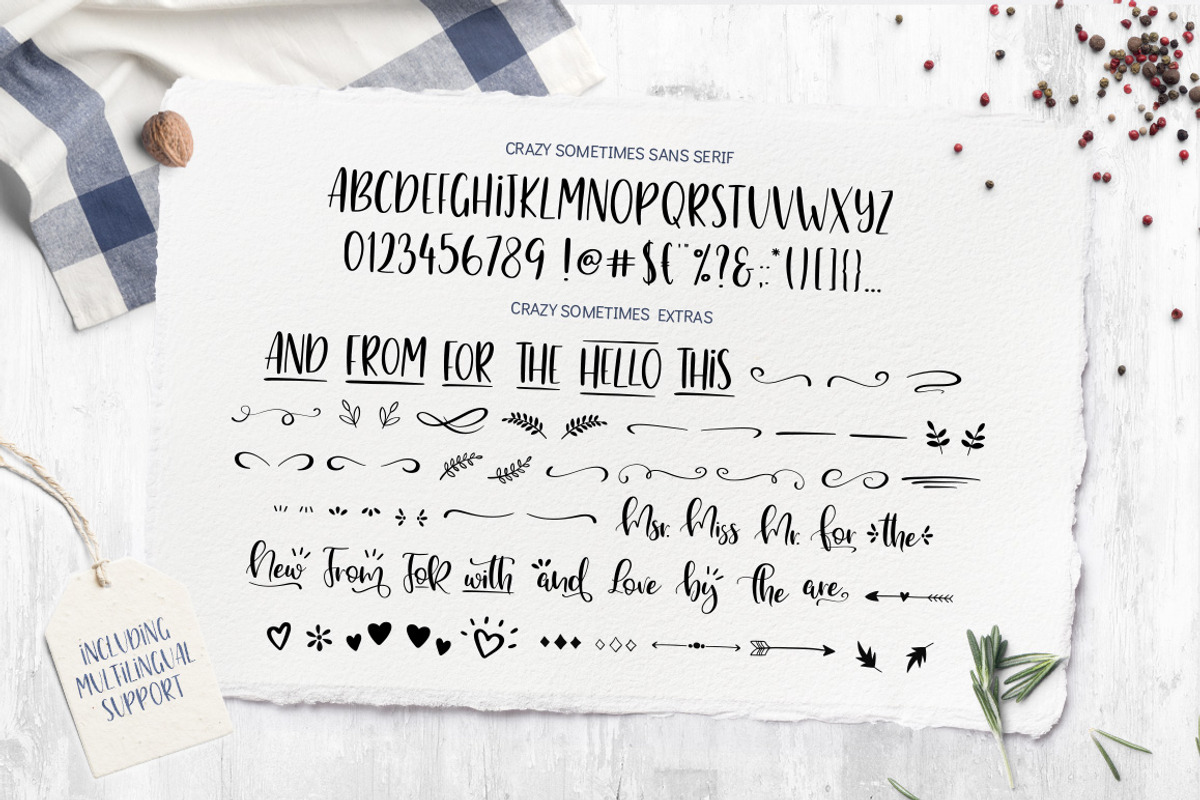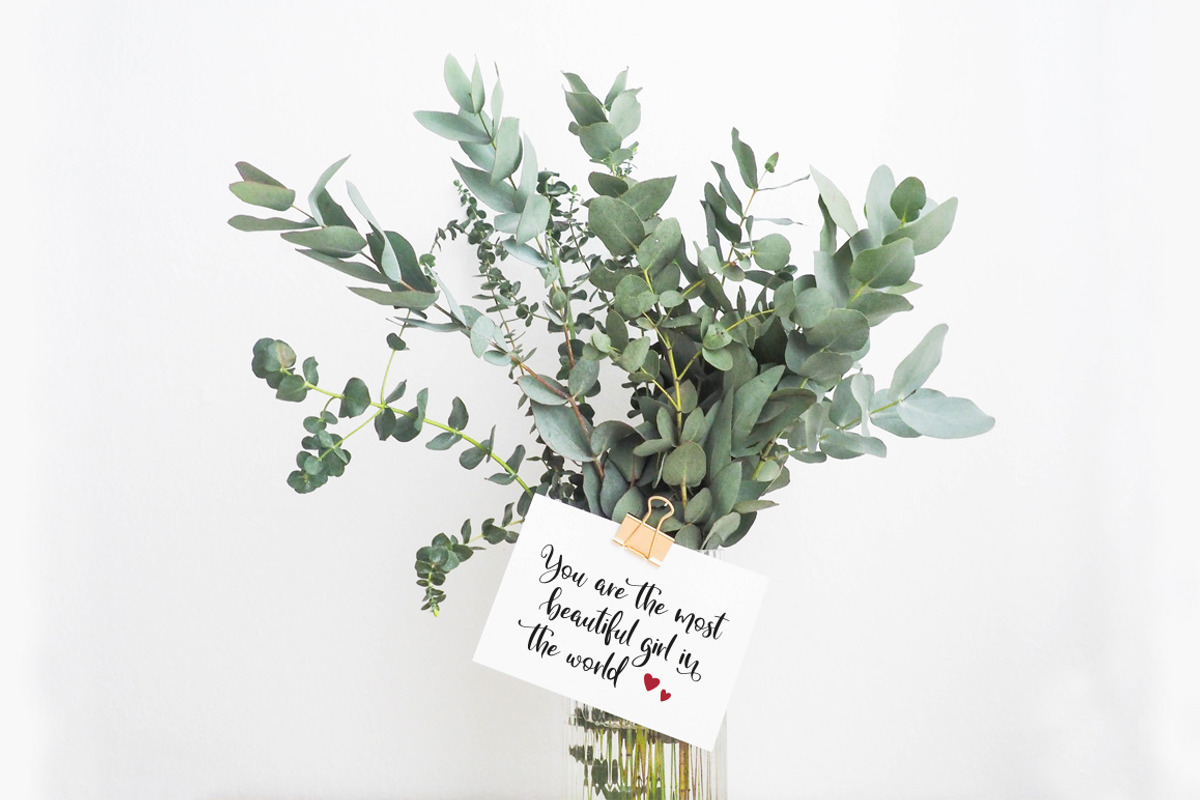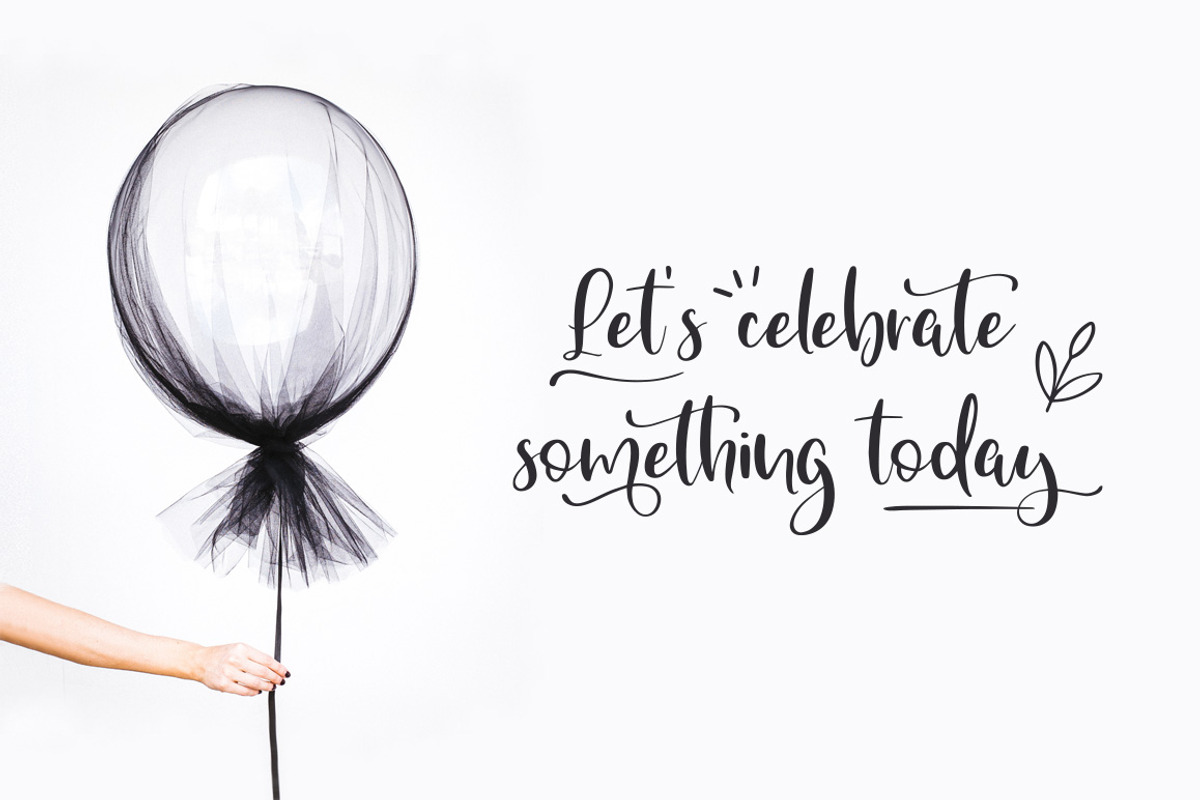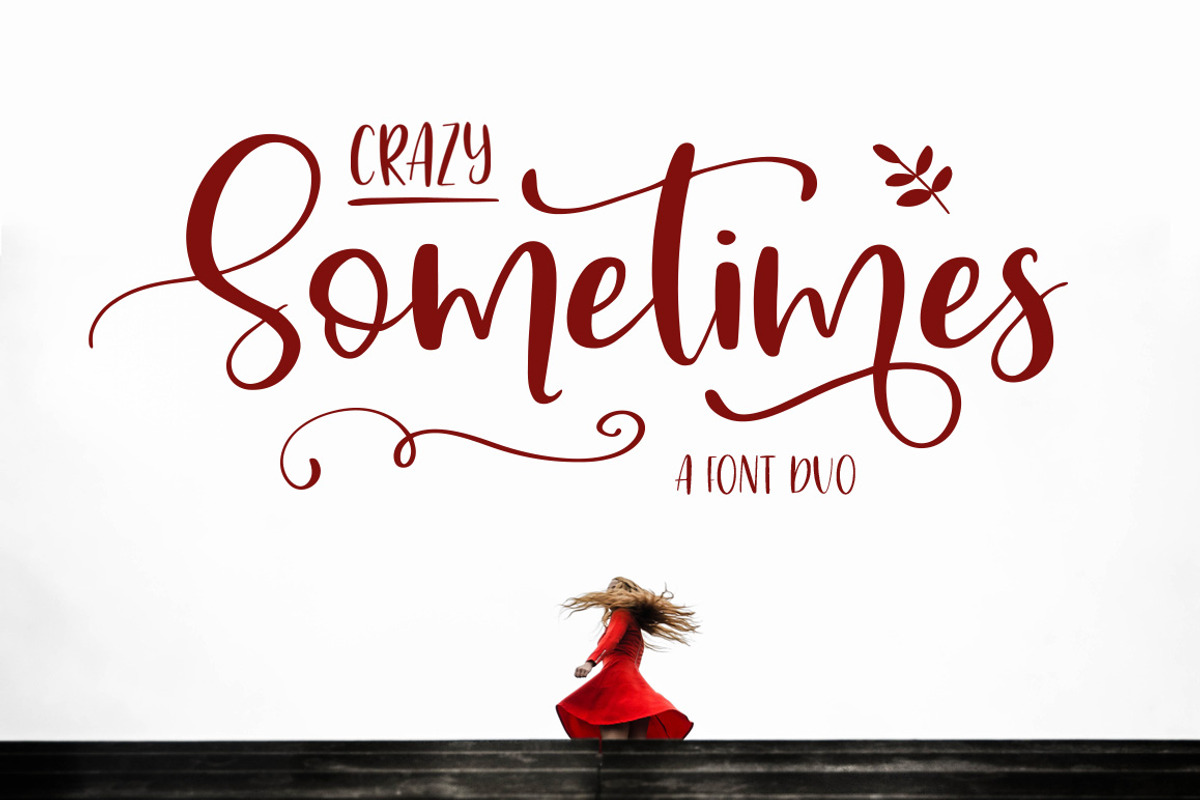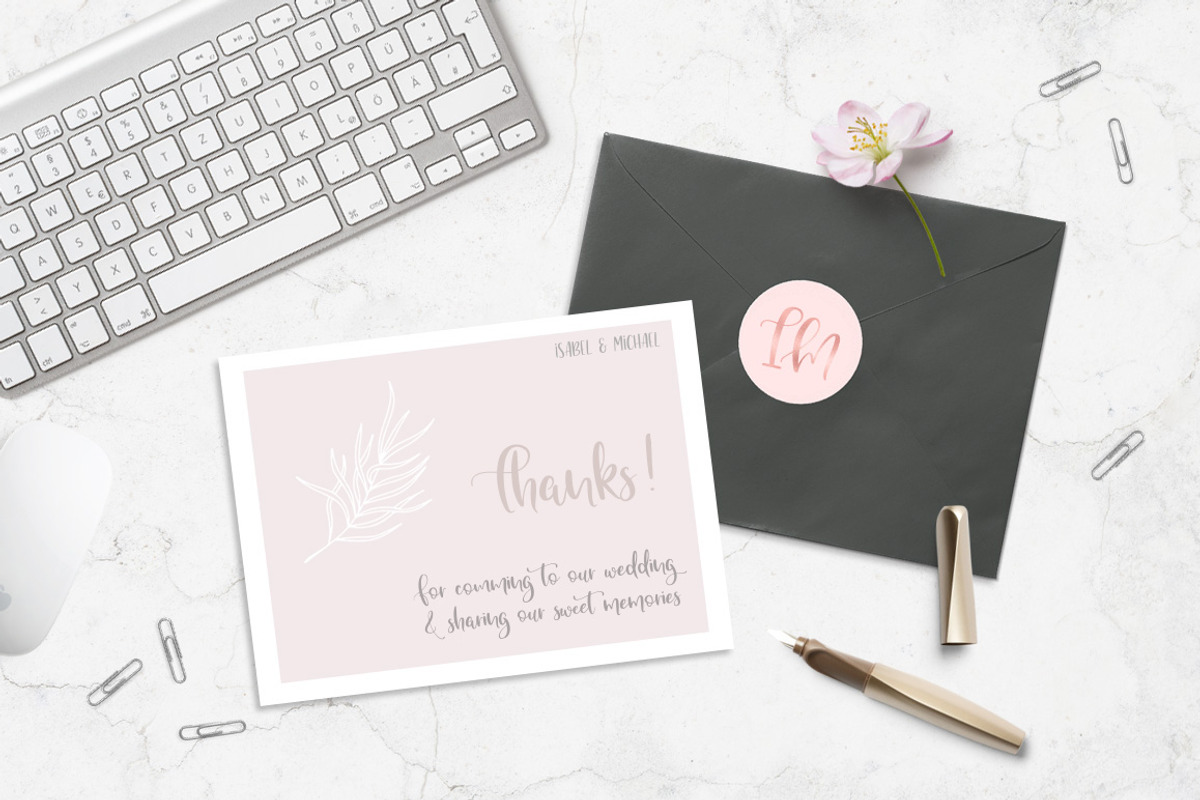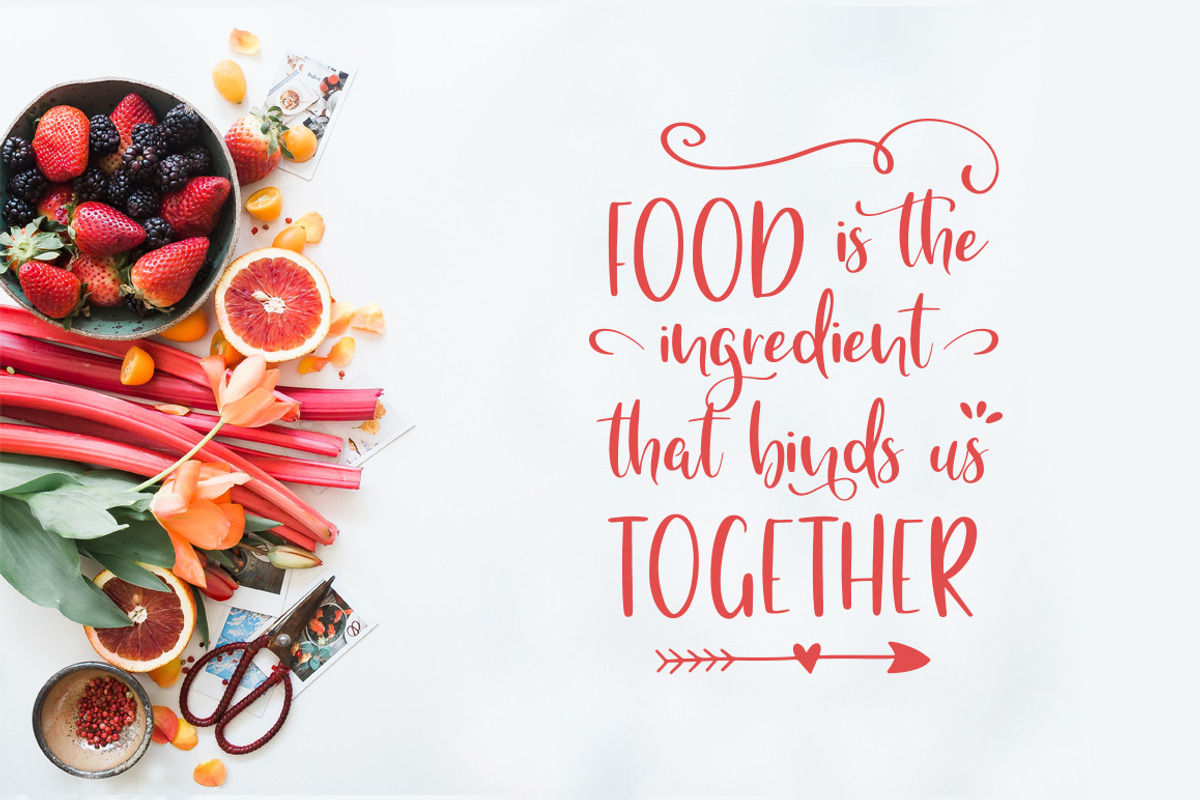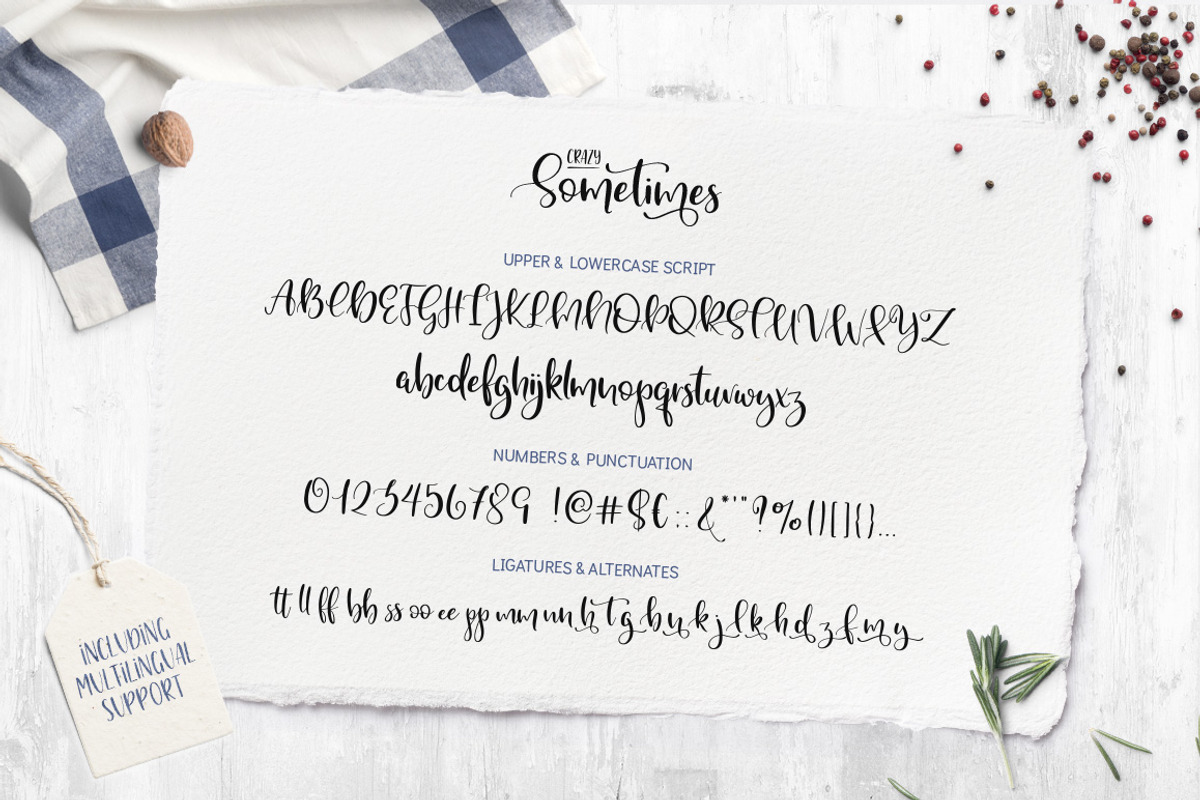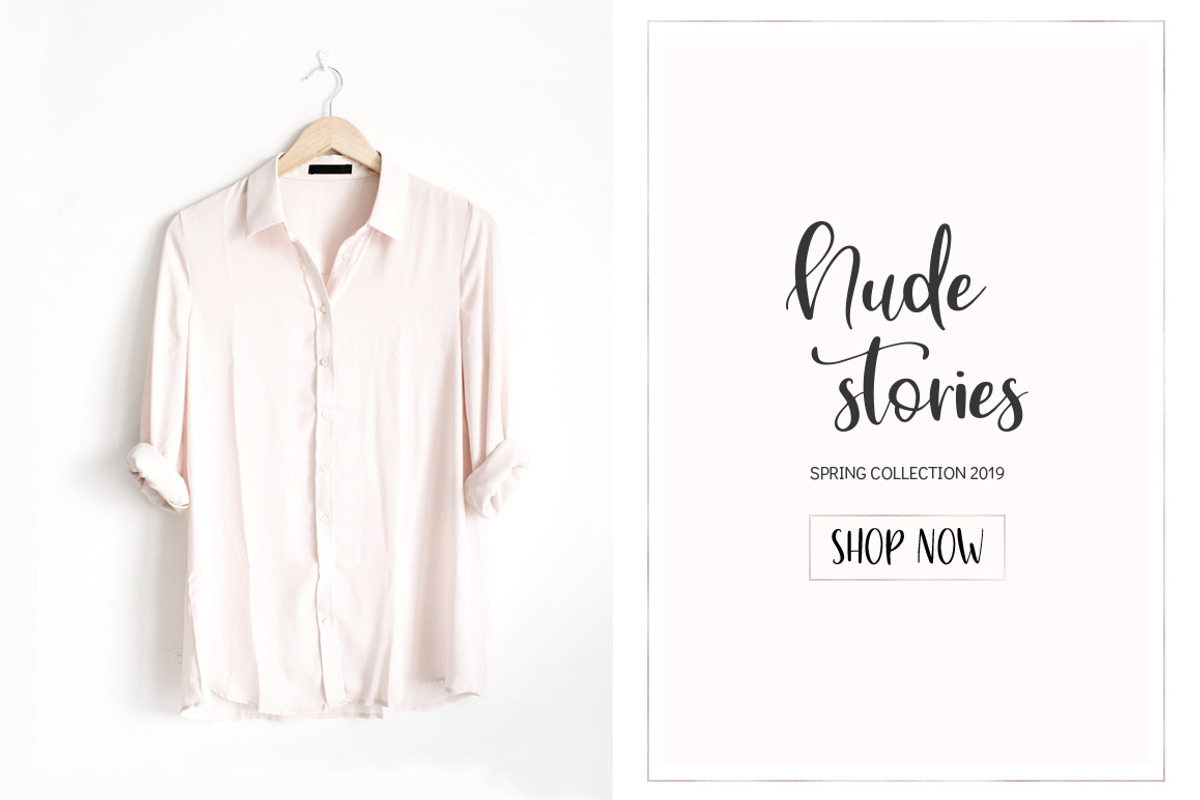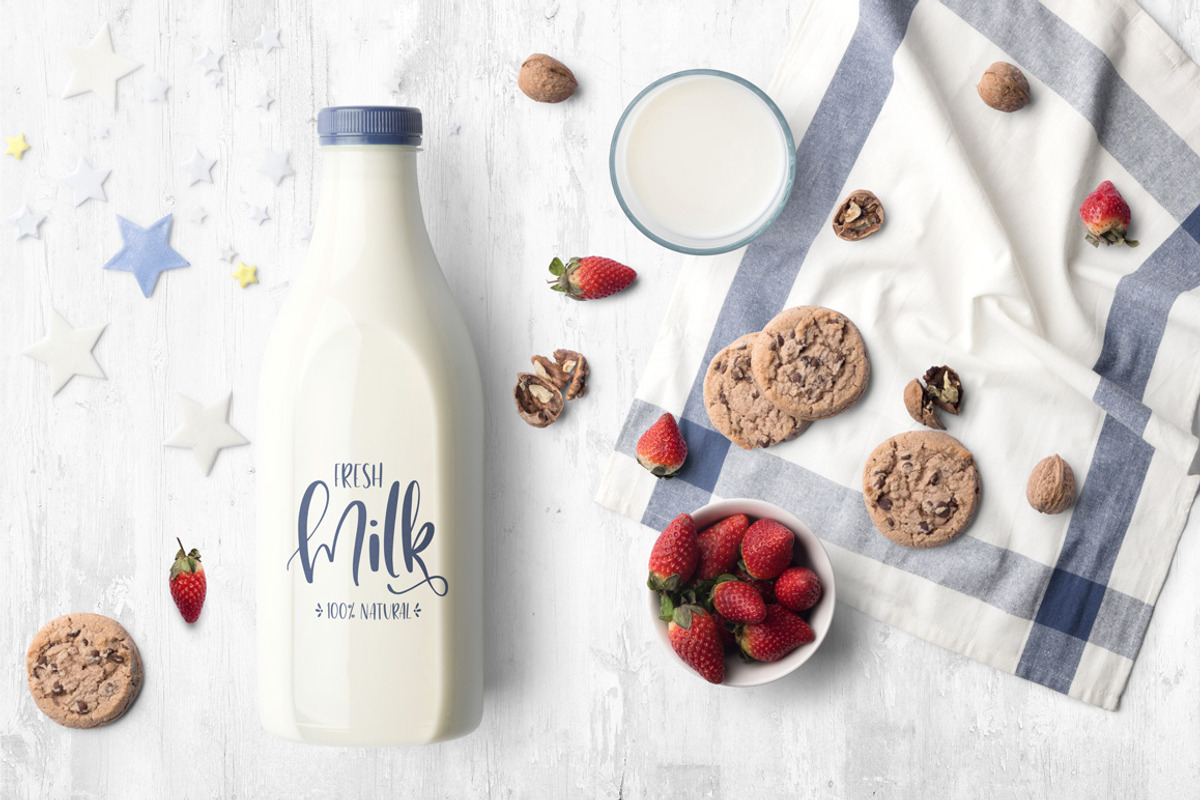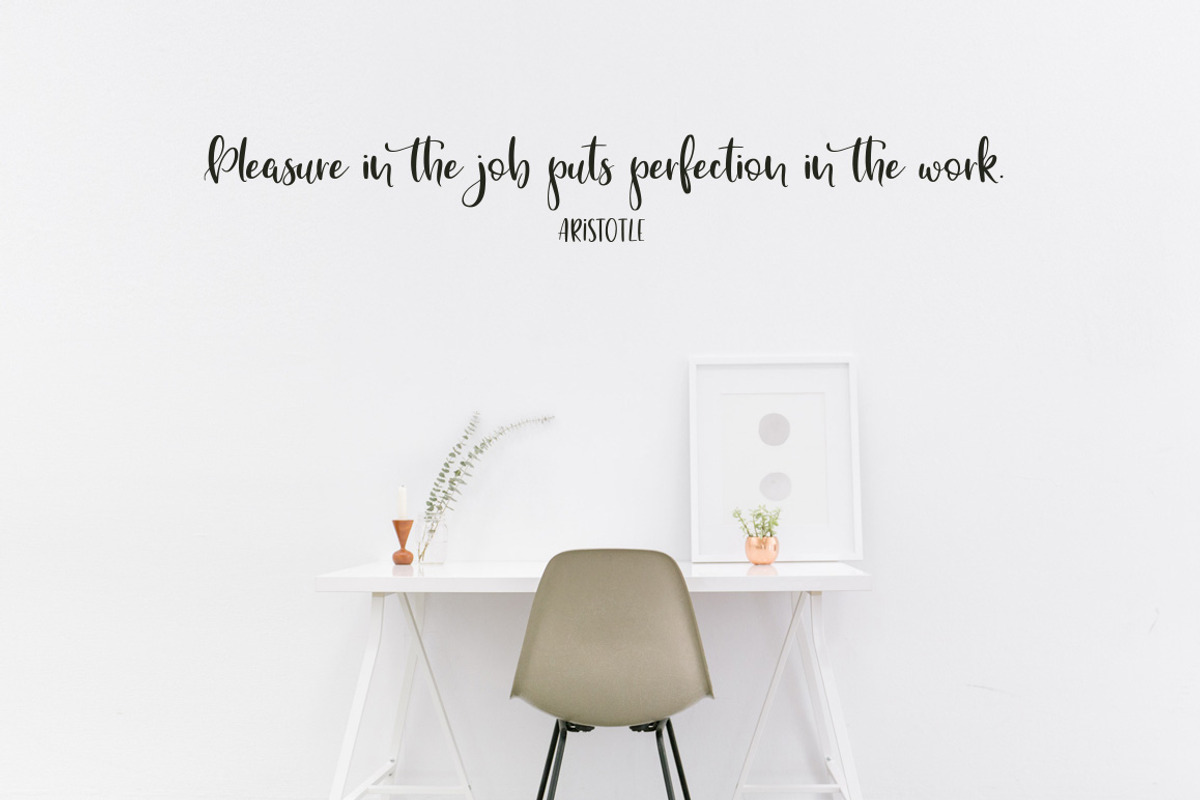
Crazy Sometimes Font Duo
Say hello to the brand new Crazy Sometimes Font Duo :)
Beautiful and decorative font family with extras to make your typographic work awesome!
Perfect for greeting cards, branding projects, stationery design, social media, packaging, homeware designs, magazine layouts, prints and more!
- Crazy Sometimes Script
- Crazy Sometimes Sans Serif
- Crazy Sometimes Extras (with bonus swatches, illustrations & catchwords)
- Crazy Sometimes Alternates (with alternate letters if you don't have opentype capable software)